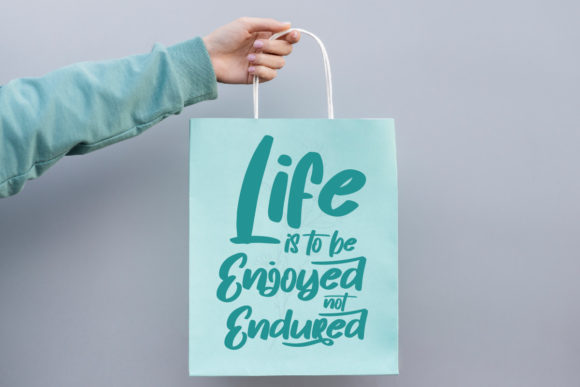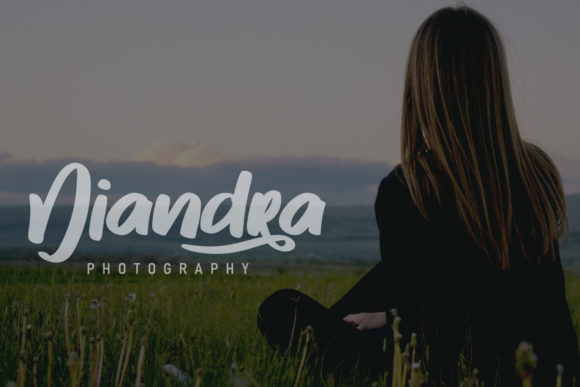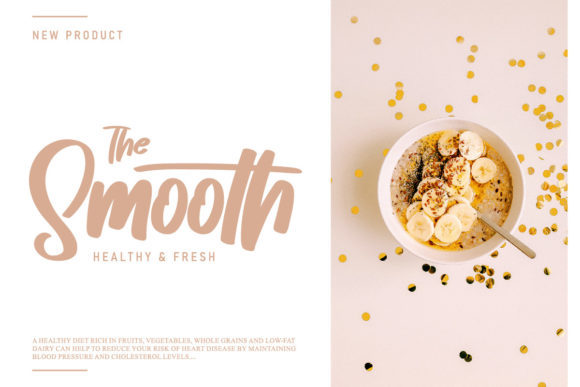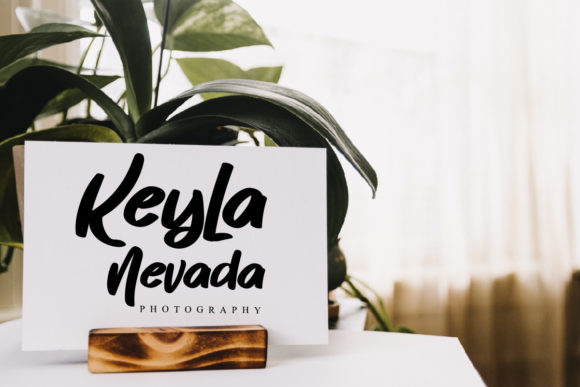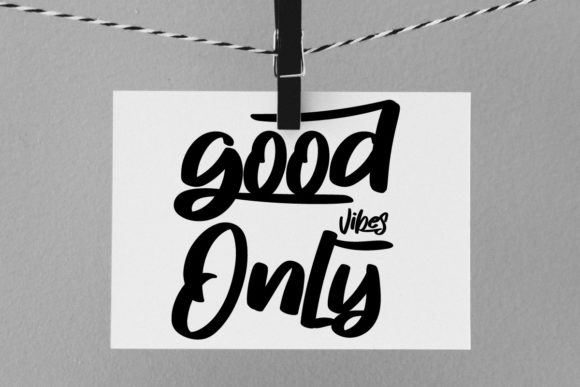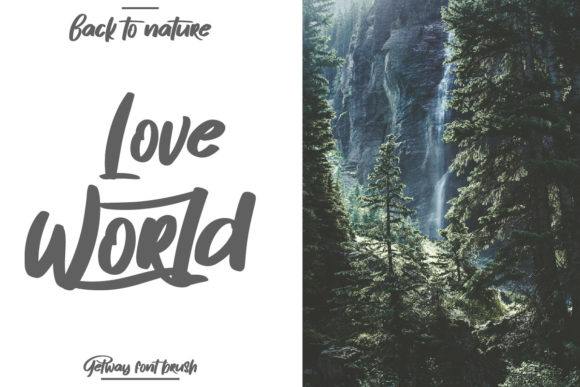
Introducing Getway Font: Elevate Your Designs with Elegance and Sophistication
In the world of typography, a font can make or break a design. For designers and crafters seeking to add a touch of class and modernity to their projects, Getway Font is an exceptional choice. This beautiful and refined script font is designed to bring an air of elegance and sophistication to a wide range of applications, from logos and branding to invitations, stationery, wedding designs, social media posts, and beyond.
The Characteristics of Getway Font
Getway Font boasts a classy, elegant, and modern look that sets it apart from other script fonts. Its refined strokes and fluid connections create a sense of movement and harmony, making it perfect for designs that require a touch of sophistication. Whether you’re working on a logo, a wedding invitation, or a social media post, Getway Font is sure to impress.
One of the standout features of Getway Font is its versatility. This font can be used for a wide range of projects, including:
- Logos and branding: Create a lasting impression with a custom logo that exudes elegance and sophistication.
- Invitations and stationery: Add a touch of class to your invitations, greeting cards, and other stationery.
- Wedding designs: Make your wedding designs truly unforgettable with Getway Font’s beautiful and refined script.
- Social media posts: Elevate your social media posts with a font that’s sure to grab attention.
Why Choose Getway Font?
With so many fonts available, why choose Getway Font? Here are just a few reasons why designers and crafters love this beautiful script font:
- Elegant and sophisticated design.
- Versatile and can be used for a wide range of projects.
- Perfect for designs that require a touch of class and modernity.
Tips for Using Getway Font
To get the most out of Getway Font, here are a few tips:
- Pair Getway Font with a simple sans-serif font for a striking contrast.
- Use Getway Font for headings and titles to add a touch of elegance.
- Experiment with different colors and textures to add depth and interest.
Getway Font is a beautiful and refined script font that’s perfect for designers and crafters seeking to add a touch of elegance and sophistication to their projects. With its classy, elegant, and modern look, versatility, and PUA encoding, Getway Font is an exceptional choice for a wide range of applications. Whether you’re working on a logo, invitation, wedding design, or social media post, Getway Font is sure to impress.